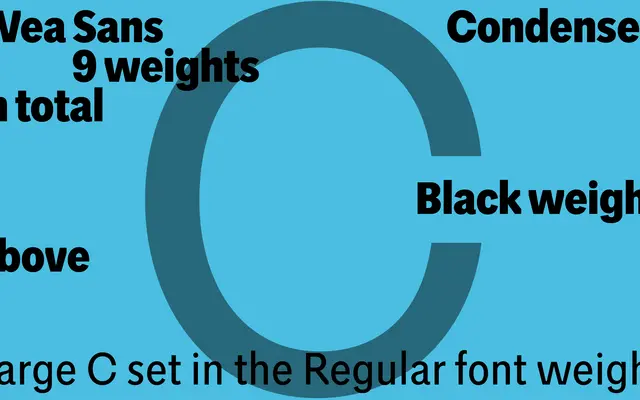
WEA Sans Condensed
A2-Type · 2021
WEA Sans Condensed specimen from A2-Type
The condensed sans-serif component of a bespoke type system commissioned for Weekendavisen, the Danish weekly broadsheet, part of a redesign that won World's Best Designed Newspaper at SND in 2021.
Nine weights from Thin to Black make this a versatile condensed grotesque built for dense editorial layouts across print and screen. It sits within a larger type system encompassing Hairline, Display, Text and Sans variants, all rooted in the paper's lineage back to Berlingske Tidende (1749). The full system received the Tokyo TDC Award in 2021, and the newspaper redesign it anchors was named World's Best Designed Newspaper twice over.
A condensed sans-serif designed as part of a newspaper type system, sitting in the grotesque tradition with a practical, editorial sensibility suited to tight column widths in print and on screen.